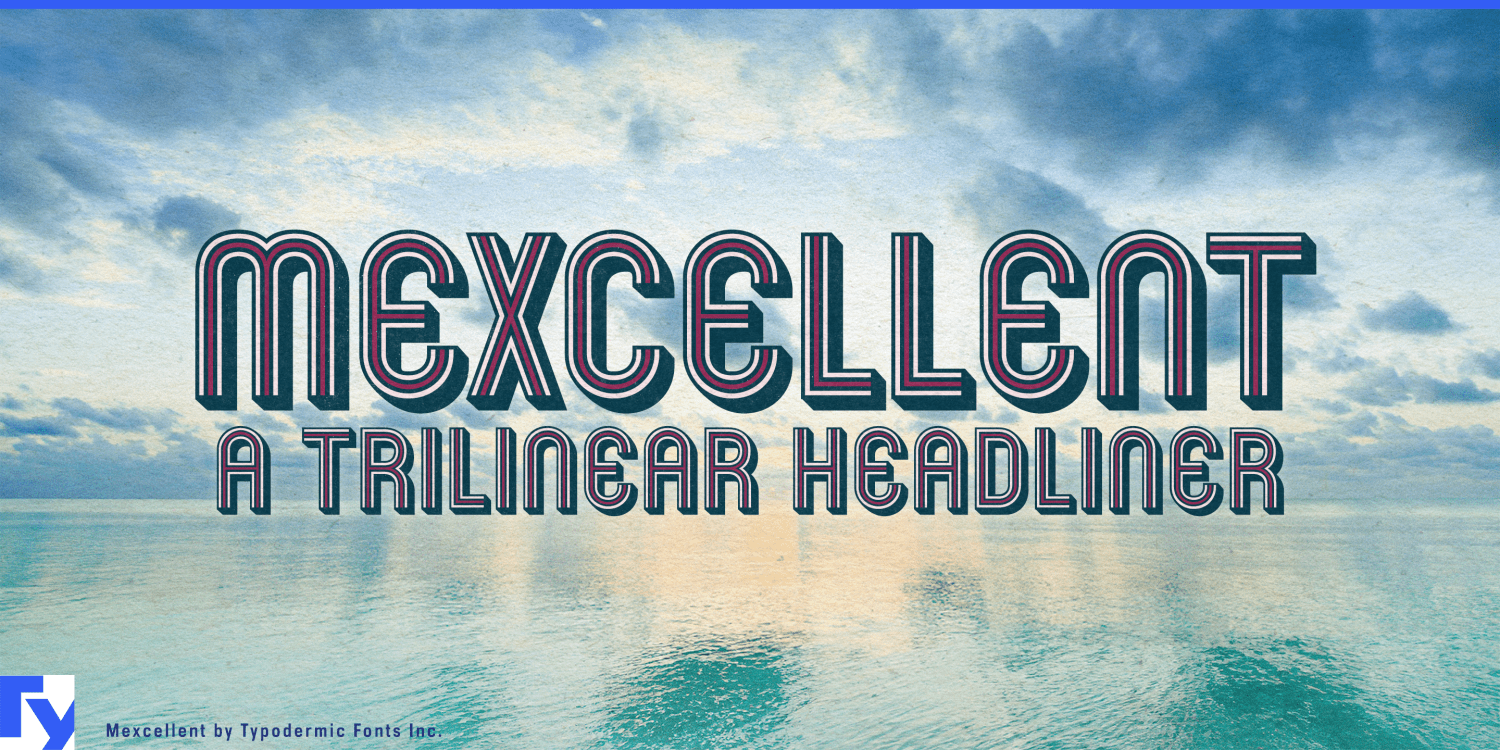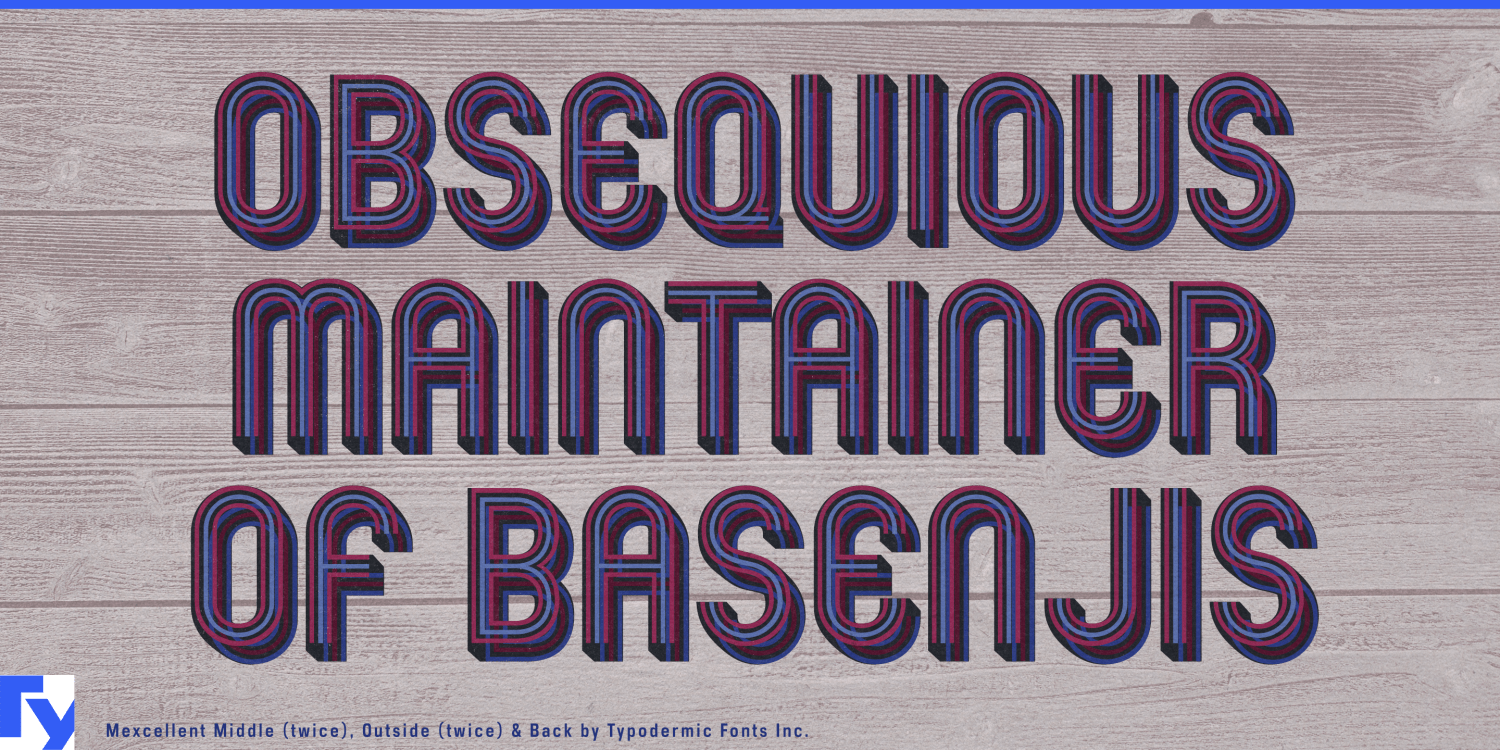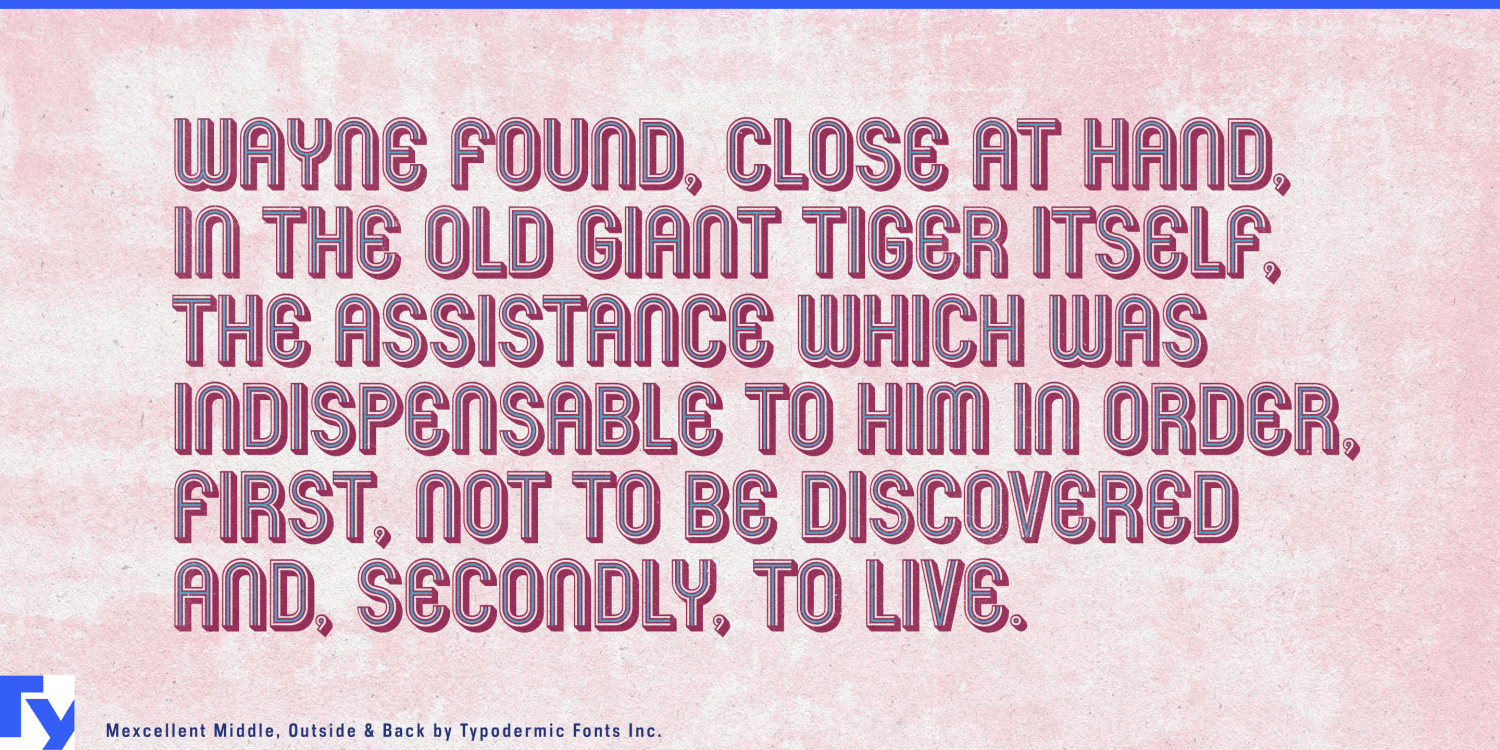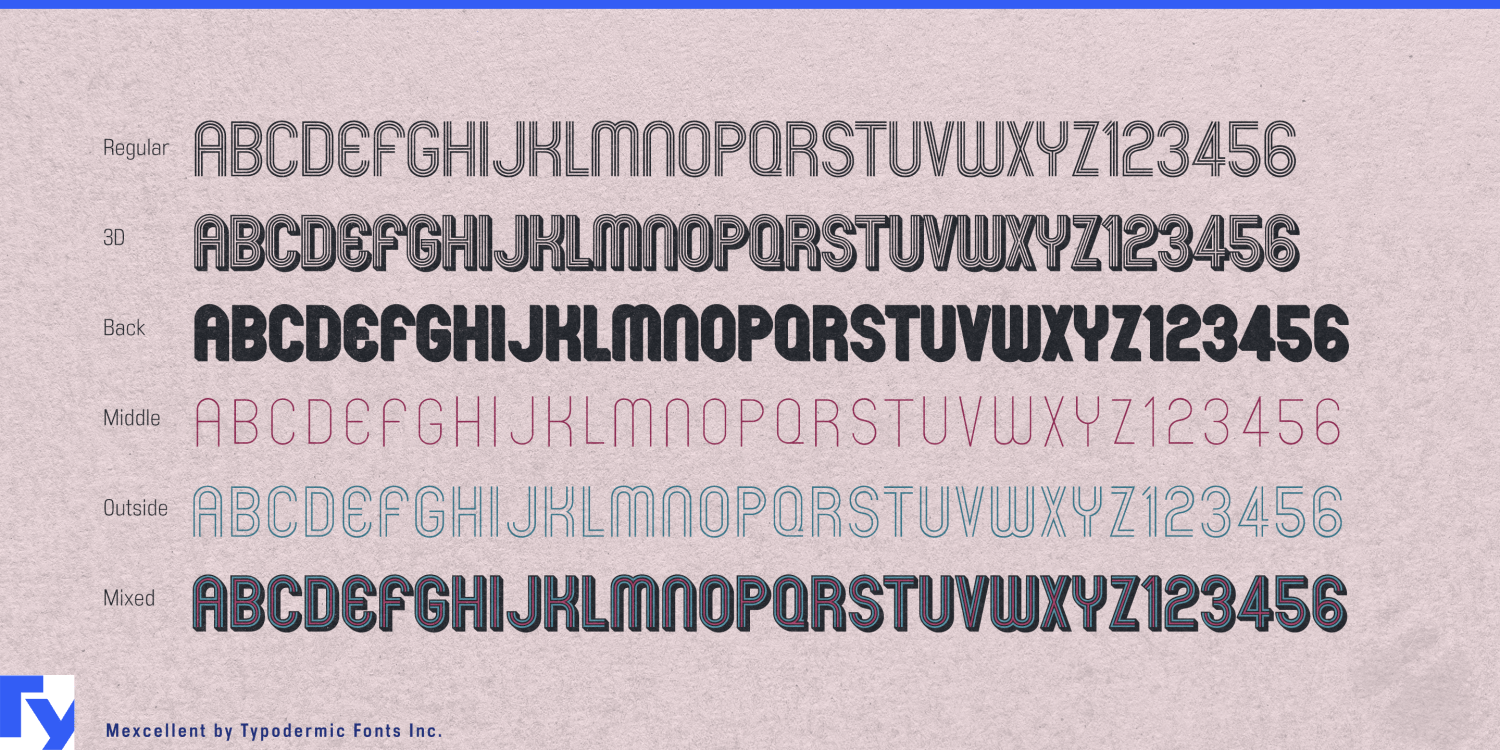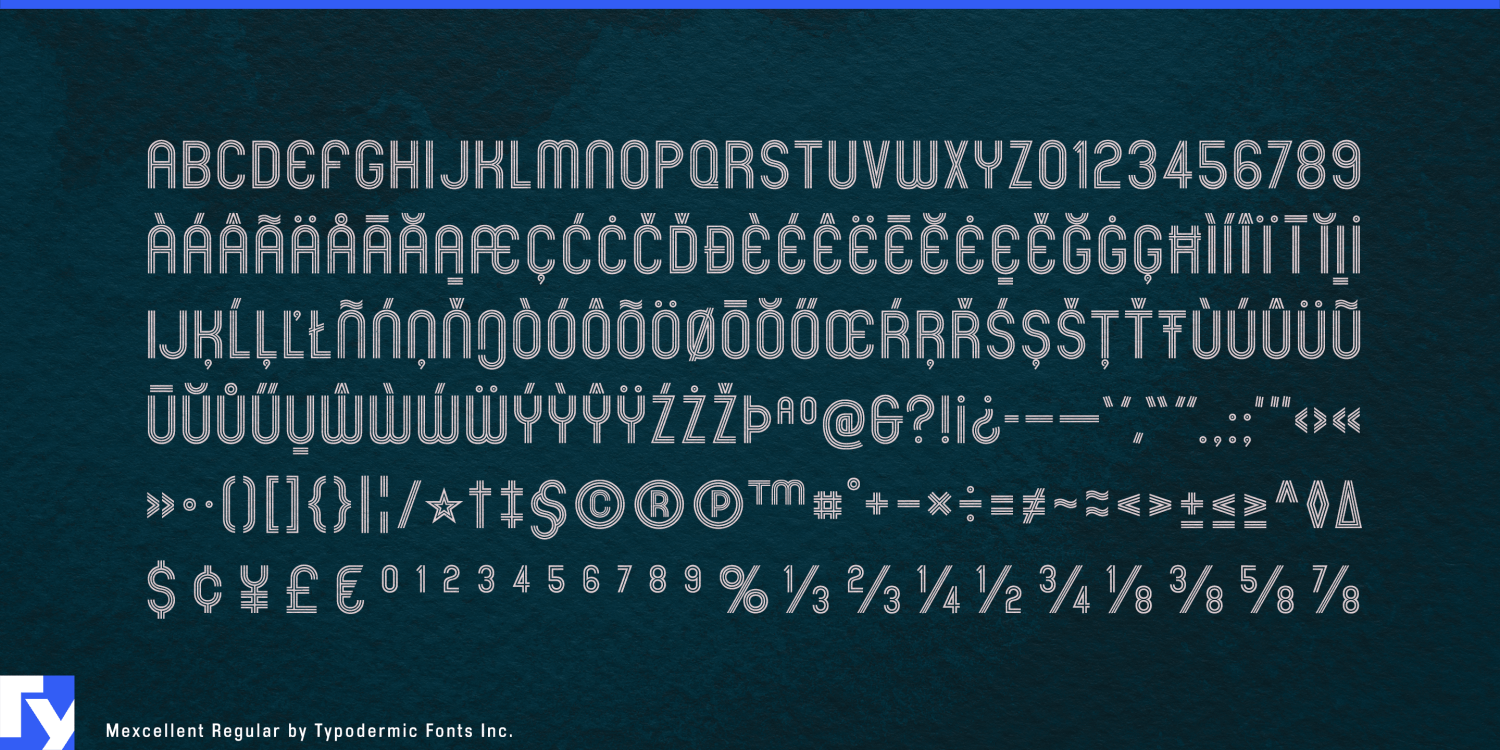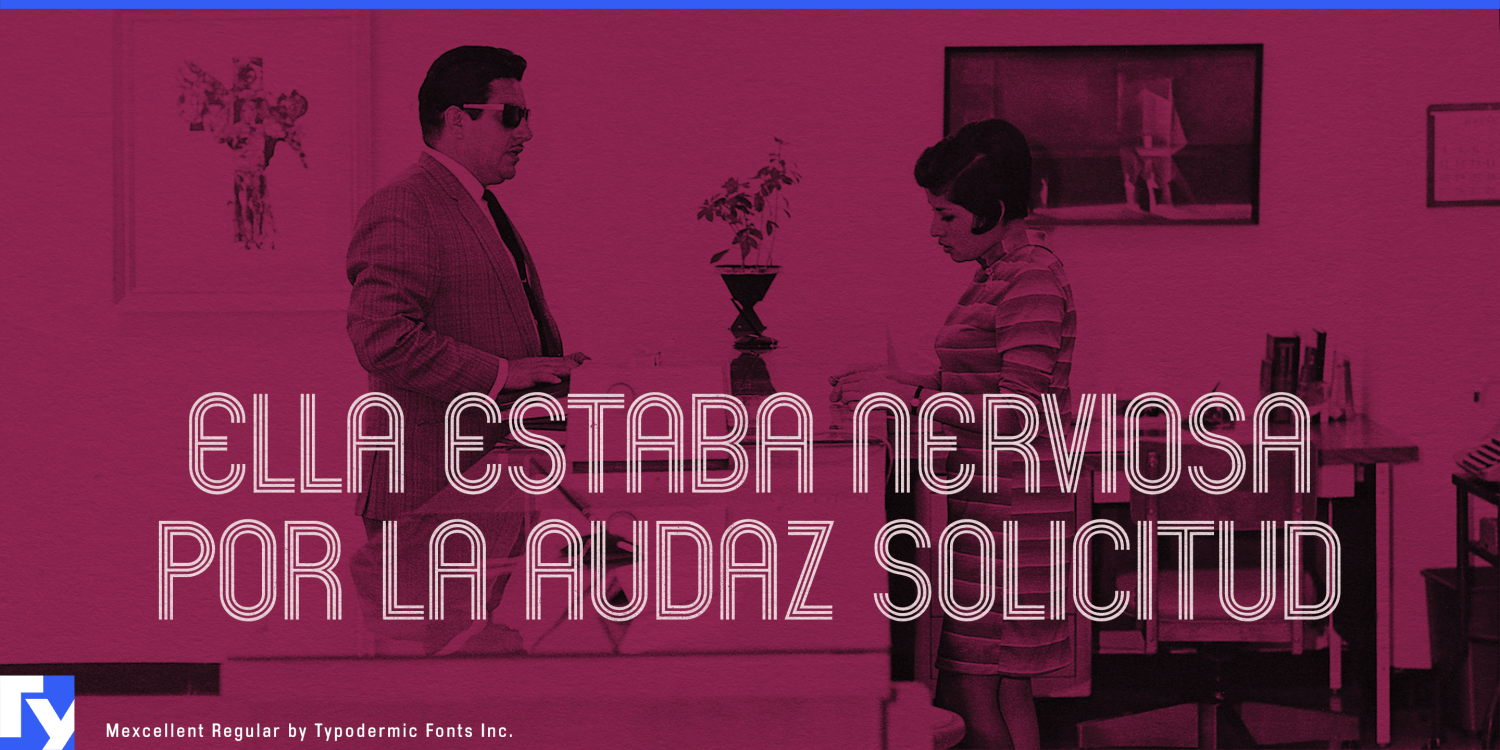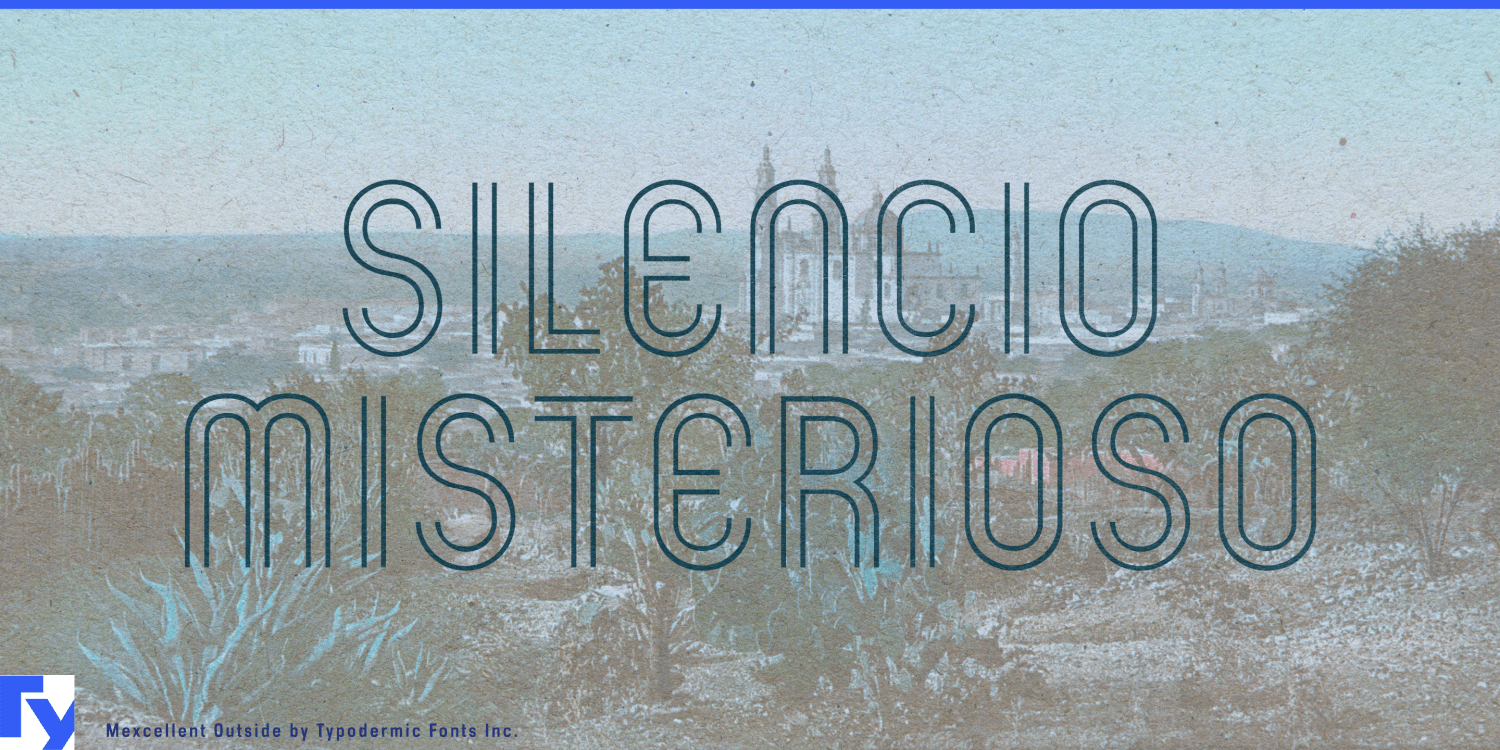
Mexcellent
Font Family by Typodermic
A striped headline is easy to use once. The harder job is carrying it through team colorways, live footage, product variants, motion graphics and fabricated signage without rebuilding the lettering every time. Mexcellent’s free Regular and 3D styles provide finished effects; Back, Middle and Outside expose the construction, separating the solid body, central line and outer stripes so each component can be controlled independently.
Back supplies an opaque silhouette that remains strong over photography or video. Middle isolates the central stripe, while Outside provides the paired exterior lines. Stack all three for the complete treatment, remove one to change the visual density, or recolor each component around teams, divisions, host cities and product editions. Layers can also be duplicated, offset and reordered to create deeper echoes, shadows and expanded stripe effects.
Mexcellent grew from the trilinear lettering associated with the 1968 Mexico City Olympics, but the separated construction makes it useful far beyond historical imitation. Contemporary sports identities must move through tournament titles, matchup cards, athlete introductions, qualifying graphics, arena screens, social templates, merchandise and live broadcasts. The lettering can remain consistent while its palette changes for each team, event stage or competition class.
The layers also give motion designers distinct elements to animate. Outer lines can arrive before the center; the middle stripe can travel through the word; the solid body can lock into place beneath moving outlines. Because the components share the same underlying forms, a sequence can move between open, striped and solid states without requiring several independently drawn versions.
Product colorways create a similar problem. Sports footwear, performance apparel, gaming hardware, bicycles and brand collaborations often keep one product name across several palettes, markets or limited editions. Mexcellent preserves the wordmark silhouette while each layer responds to the product. Back can provide a strong single-color version for manufacturing; the full stack can appear across launch films, cartons, retail displays and campaign graphics.
The components can represent production processes as easily as colors. On packaging or event merchandise, one layer might carry the main ink while another becomes foil, metallic ink or spot varnish. In venue graphics, exhibitions and retail installations, the same parts can become separate vinyl colors, stacked acrylic, illumination or projected overlays.
Regular remains the quickest route to Mexcellent’s familiar trilinear look, while 3D provides a finished dimensional treatment. Back, Middle and Outside turn that recognizable effect into a reusable identity system whose color, density, depth and production method can change without rebuilding the lettering.